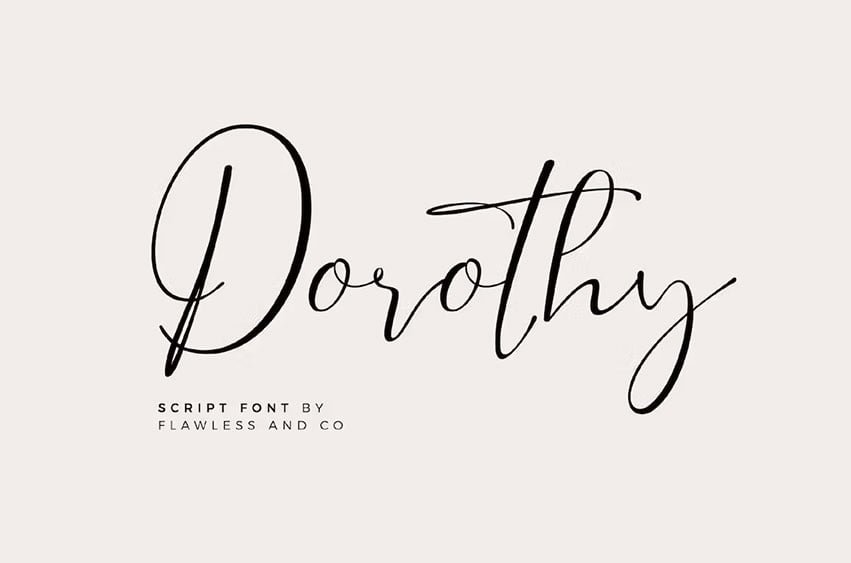
Dorothy Font Modern Handwritten Script Font, Signature Font, Canva font, calligraphy Font, Cursive Font, Modern Calligraphy, Wedding Font, Handlettered, Boho Font
Saghea Modern Signature is a handcrafted script, this style gives a feel of Girly, modern, Suitable for any graphic designs such as branding materials, print, business cards, logo, poster, photography, quotes .etc